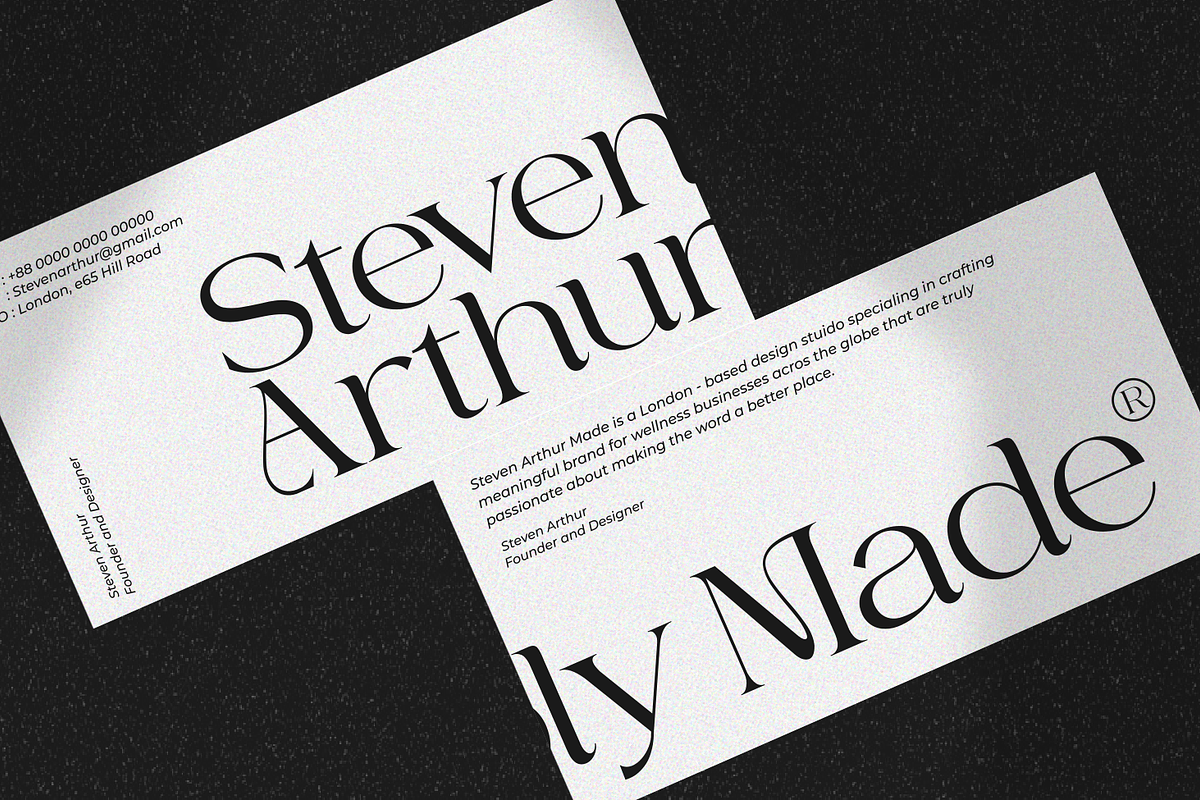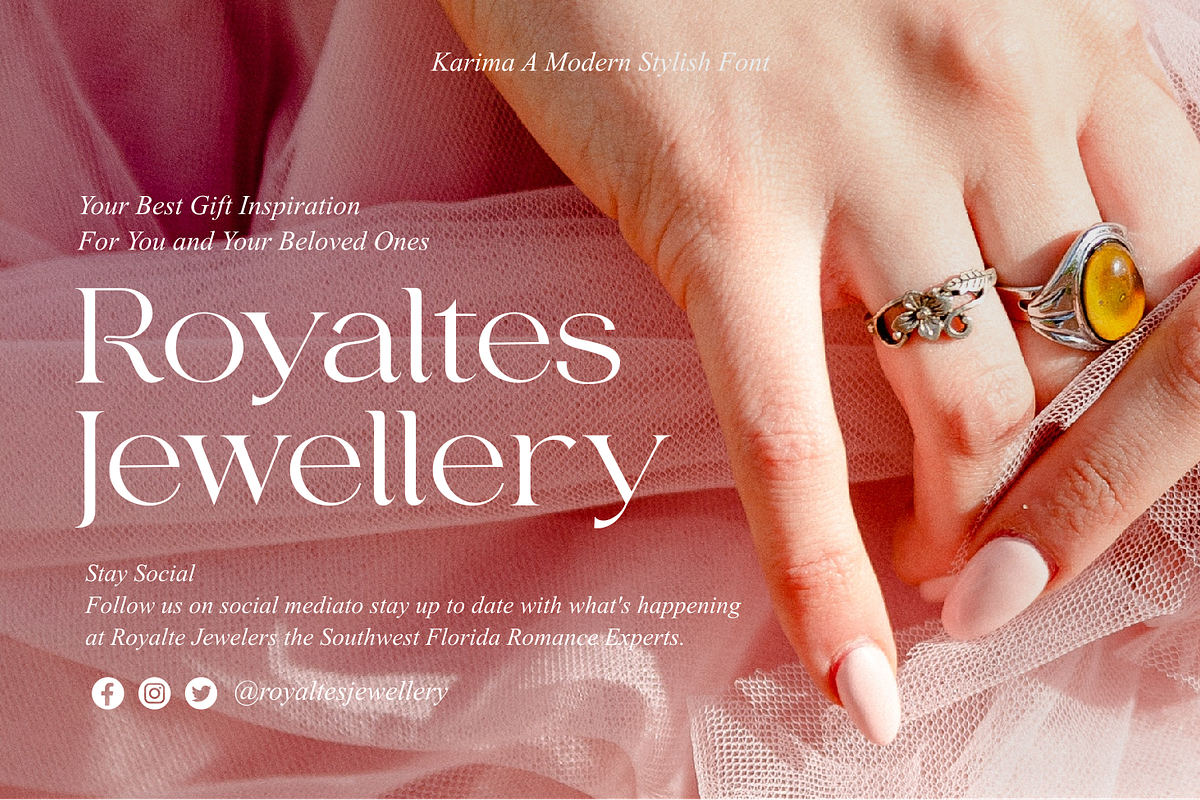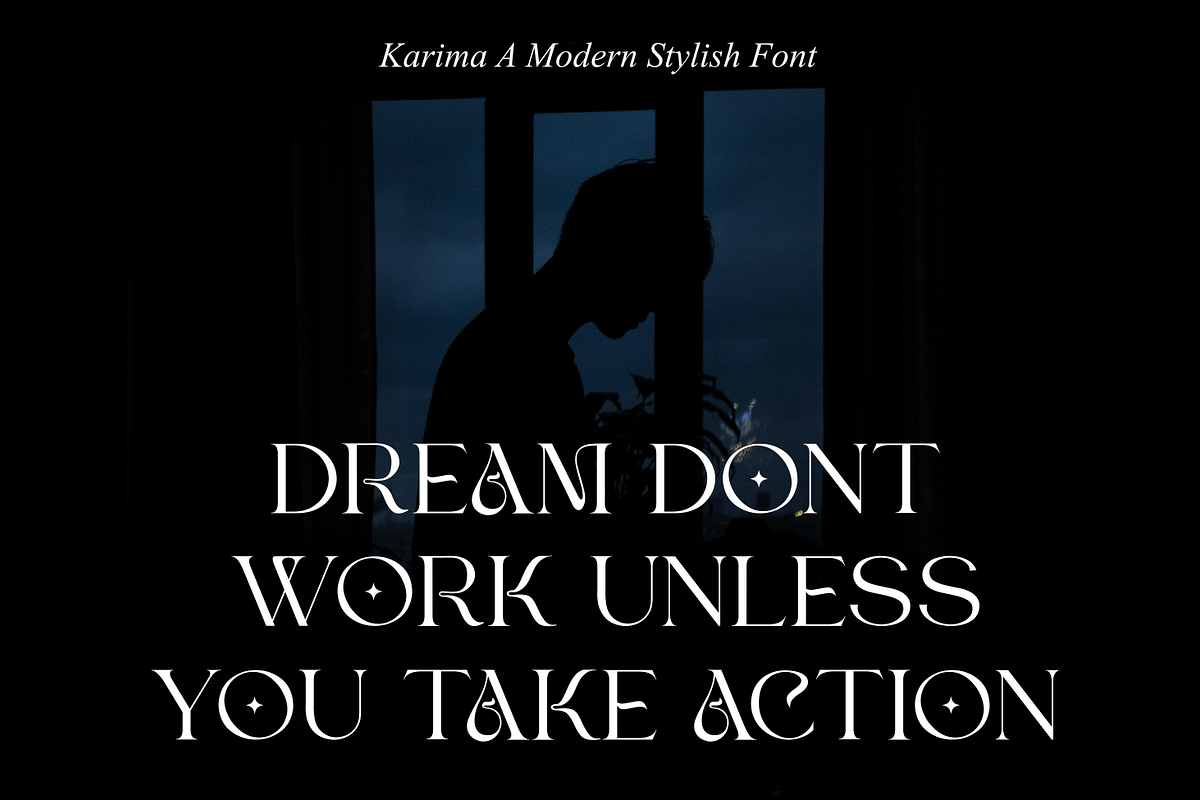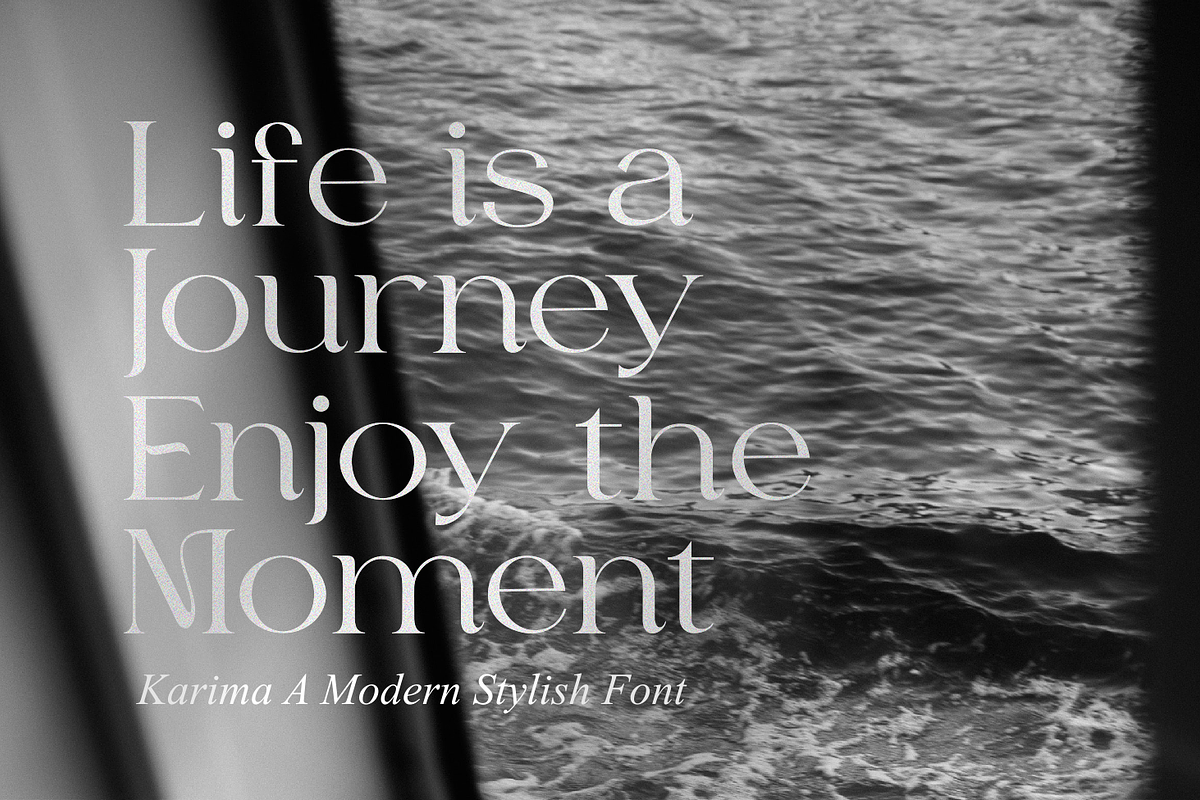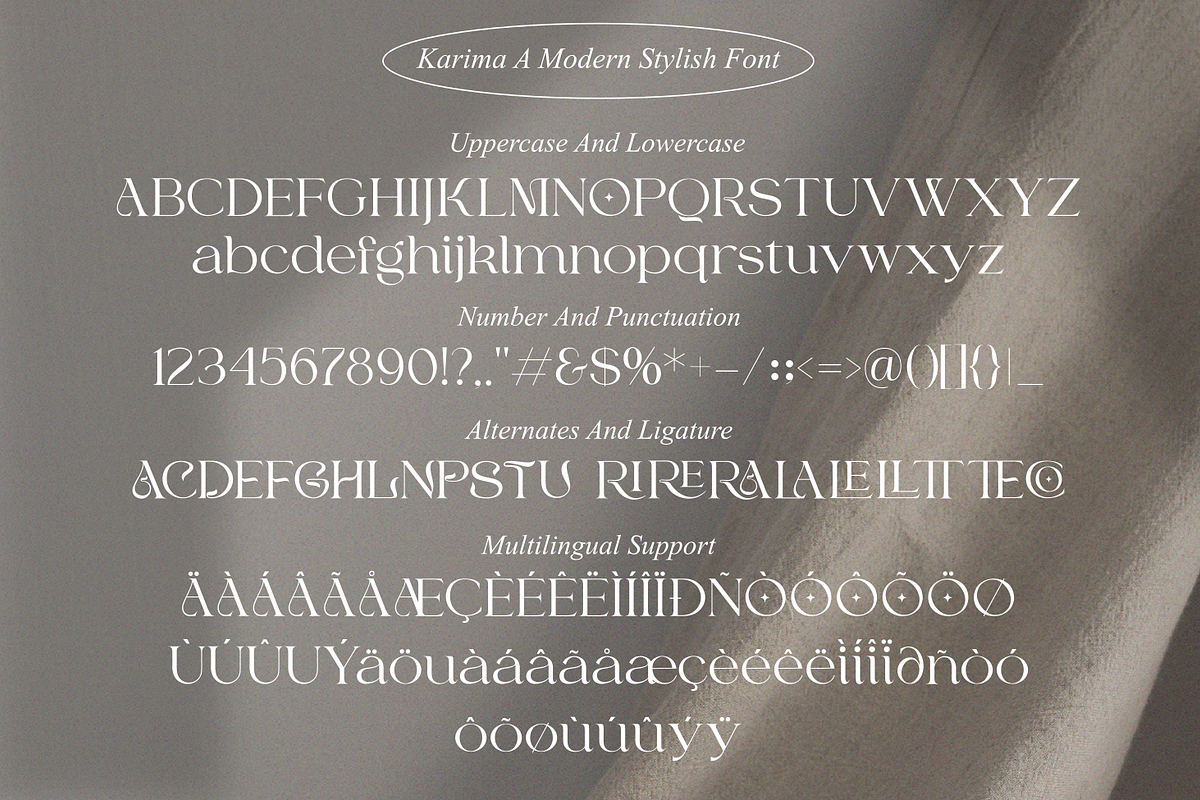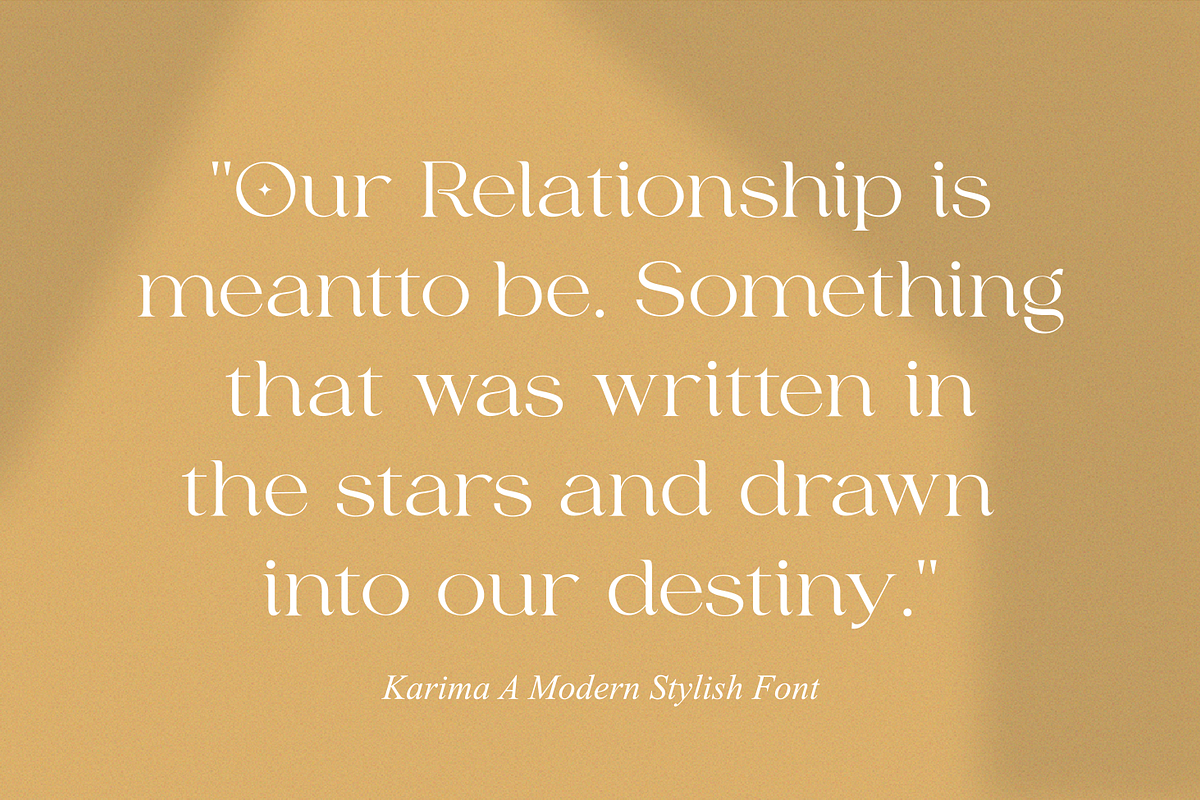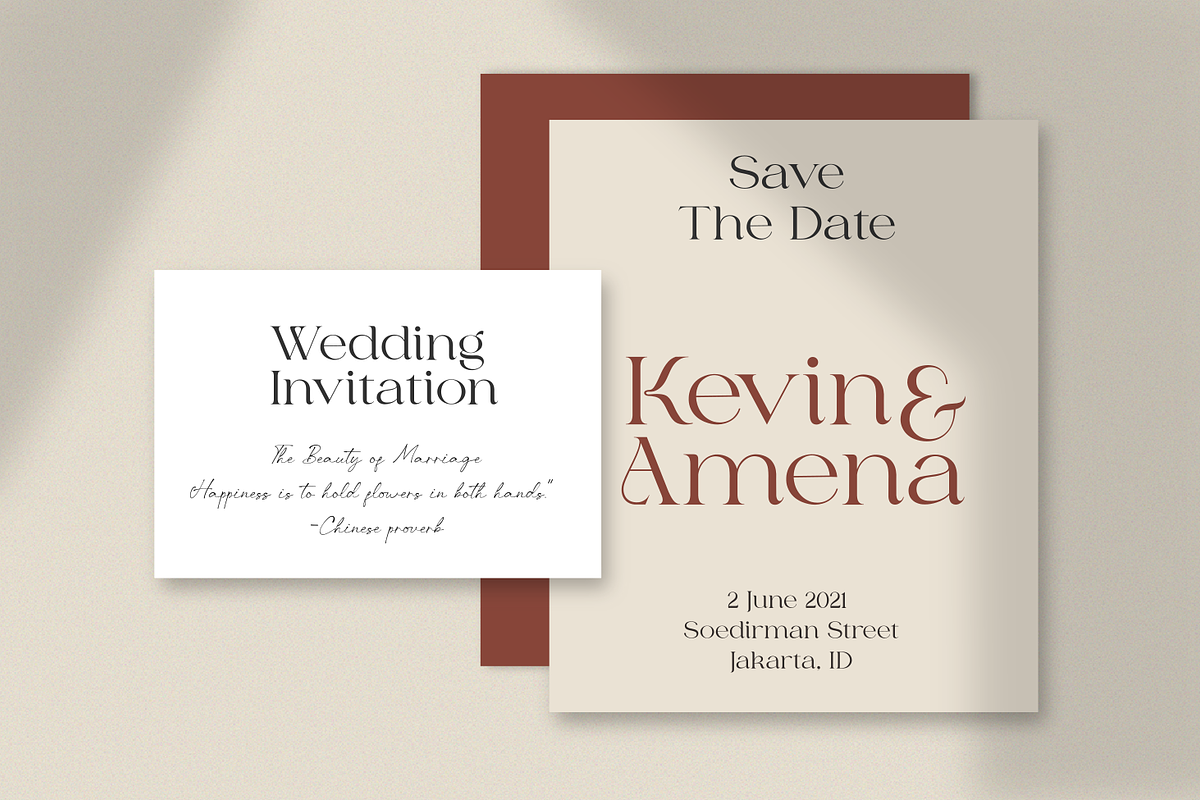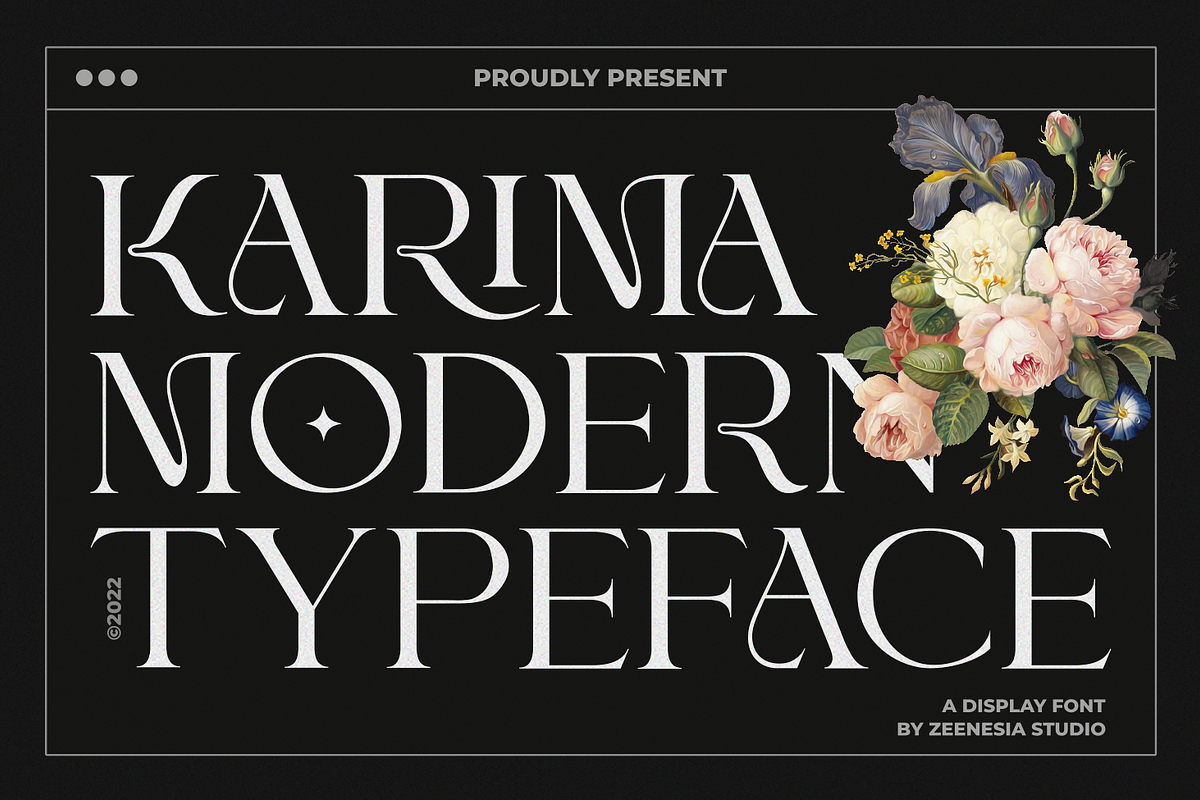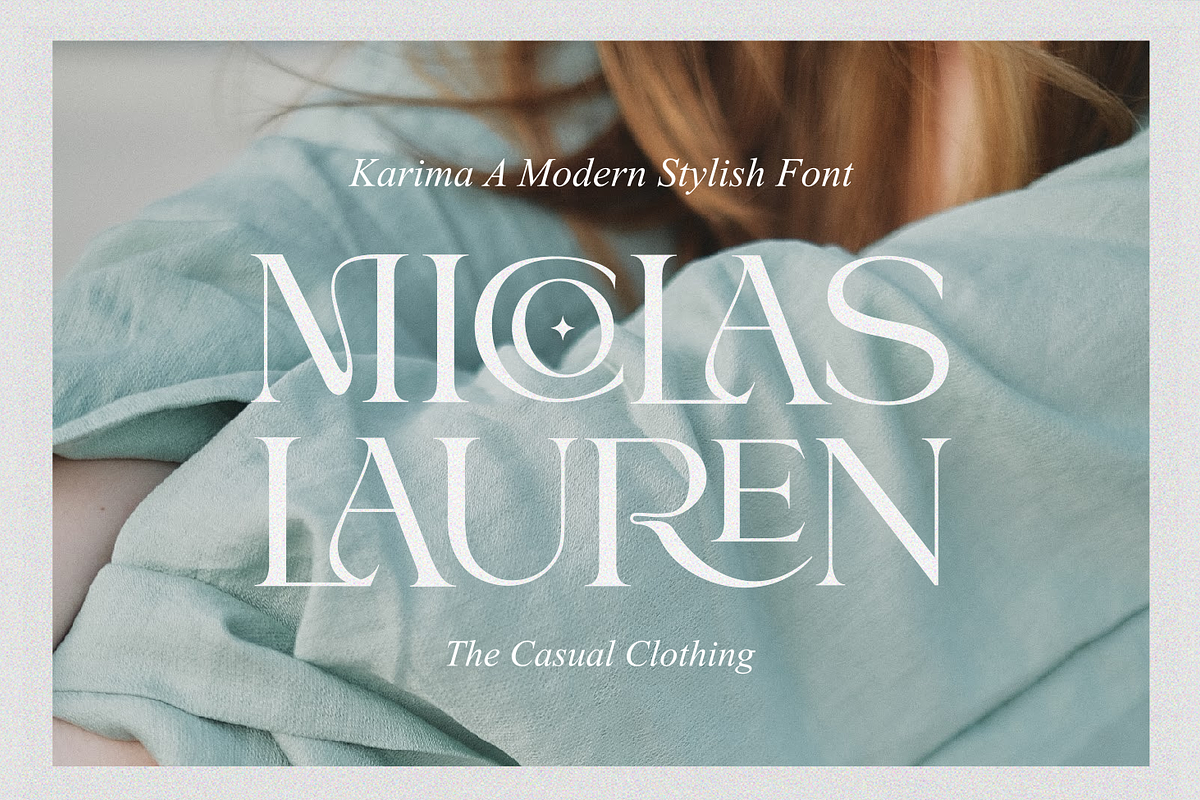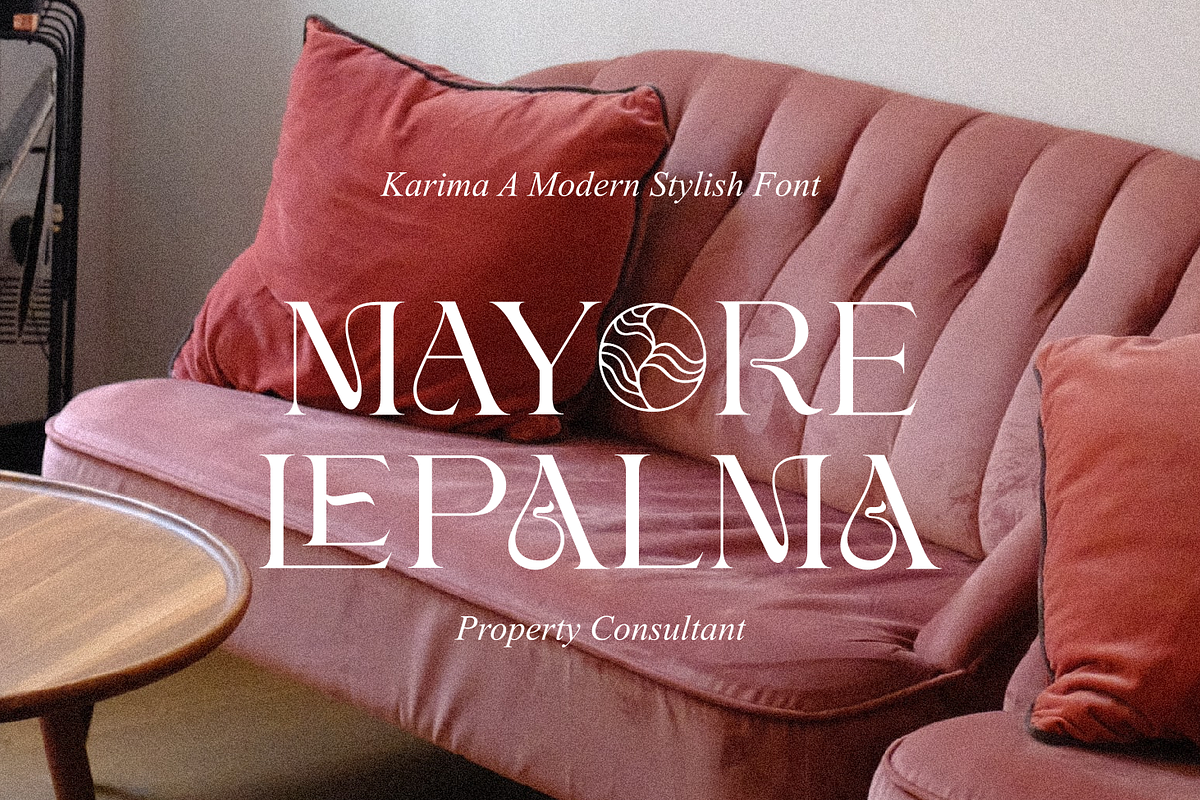
Karima A Modern Stylist Font
Karima is a beautiful and feminine serif font created by a romantic and lovely look. Karima was built with Open Type features, stylistic Alternate and Ligature makes your project will be awesome!! Perfect for Branding identity, editorial projects, Logo design, web font, clothing branding, product packaging, magazine headers, or simply as a stylish text overlay to any background image.